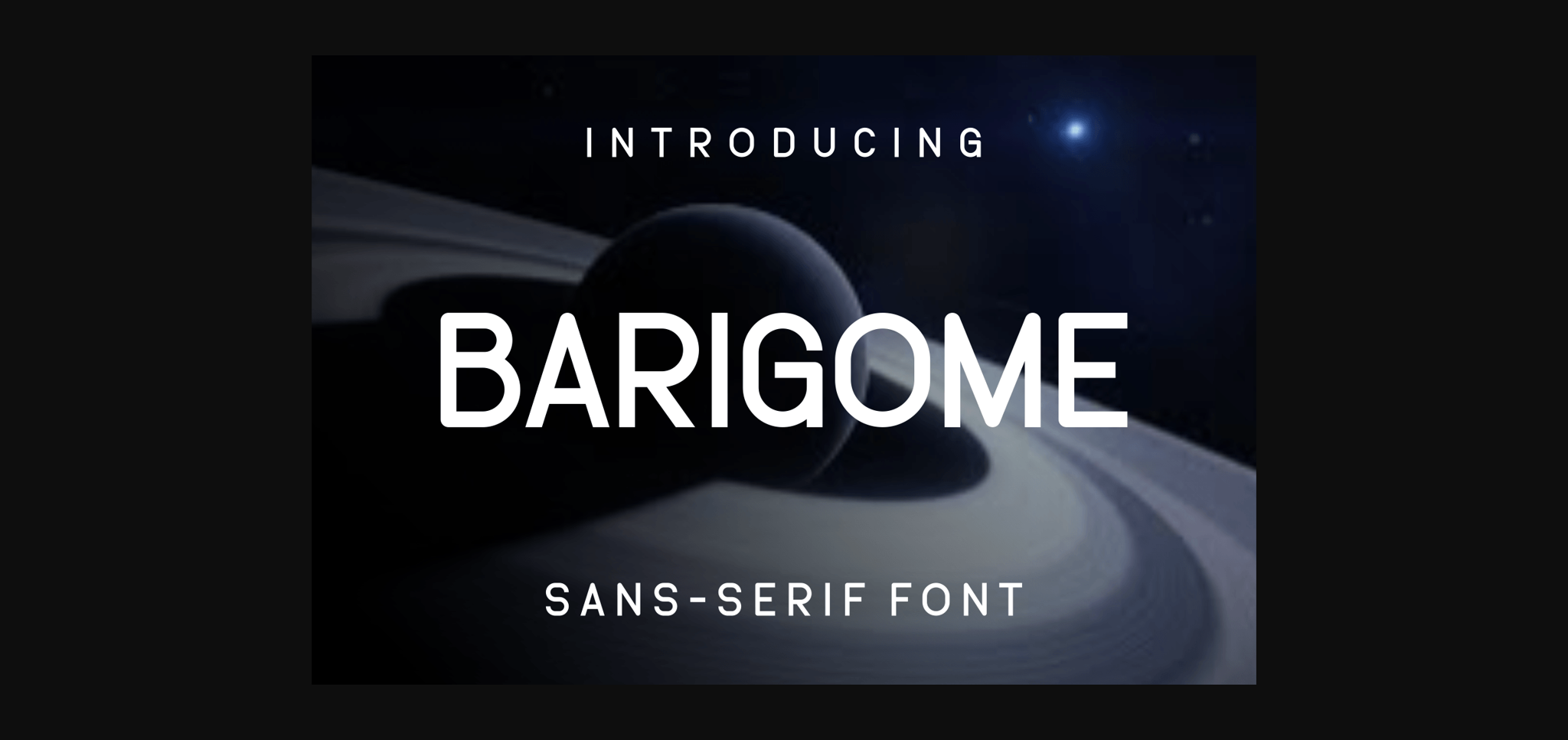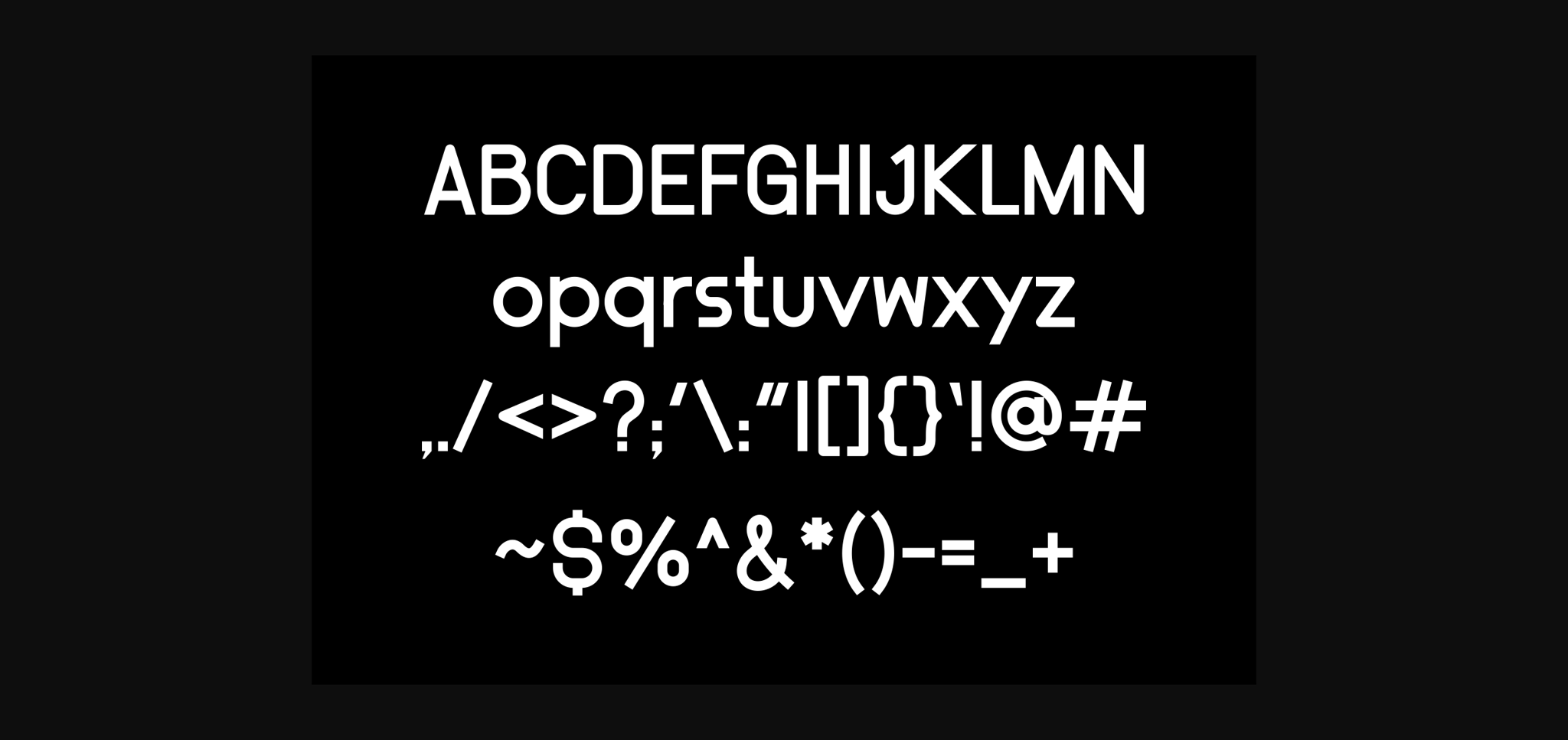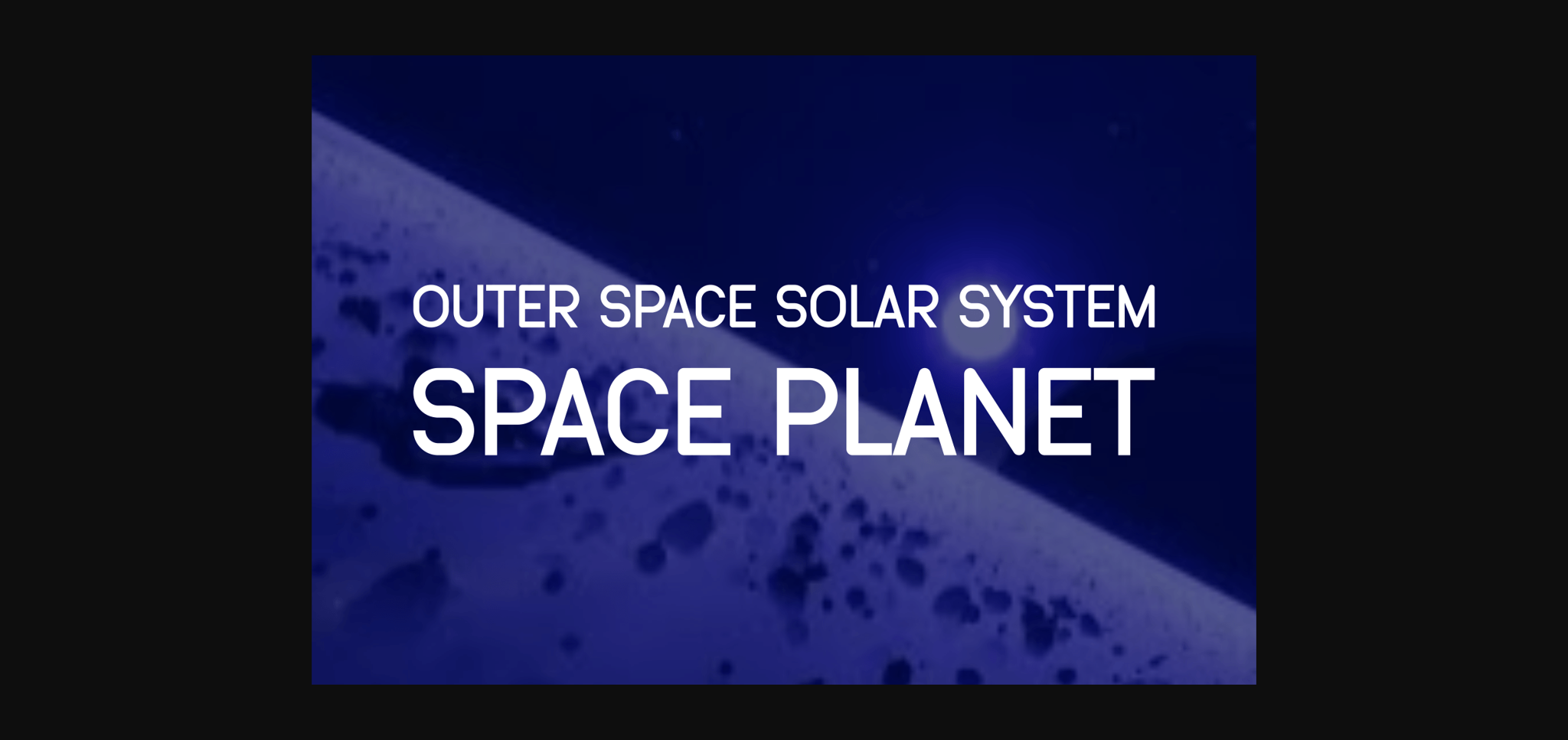
HomeSans Serif FontsBarigome Font Sans Serif Fonts Barigome Font FacebookXPinterestWhatsApp 1 of 5 ... Barigome Font Poster 2... Barigome Font Poster 3... Barigome Font Poster 4... Barigome Font Poster 5... About Barigome Font Barigome is a cool and unique sans serif font. Add this stylish font to each of your creative ideas and notice how it makes them stand out! DOWNLOAD NOW People also explored Charistha Font Marcella Marcello Font Unitas Font Juliana Hopeless Font Factory Font Halloween Party Font Angelin Gilard Font Elizabeth Font 366 0 TagsBarigome Font Previous articleRegrend FontNext articleEgreneo Font LEAVE A REPLY Cancel reply Comment: Please enter your comment! Name:* Please enter your name here Email:* You have entered an incorrect email address! Please enter your email address here Website: Save my name, email, and website in this browser for the next time I comment. Personal Use Free Gupis Personal Use Free Read more about this font Whoa Personal Use Free Read more about this font Calling Personal Use Free Read more about this font Good Times Personal Use Free Read more about this font BLOG Where to Buy American Fonts Online in 2024 Where to Buy American Fonts Online: The Ultimate Guide for 2024 Looking for the perfect American font to elevate your design projects? You're in the... Free vs Paid Fonts: Why Investing in Premium Fonts Is Worth It Modern Sans-Serif Fonts That Brands Love in 2025 Top 10 Handwritten Fonts That Elevate Your Designs